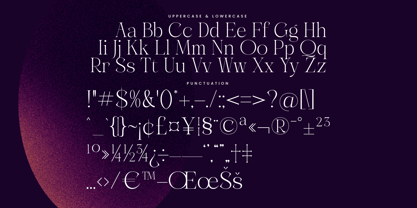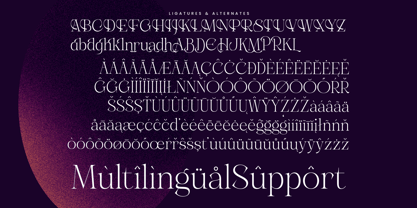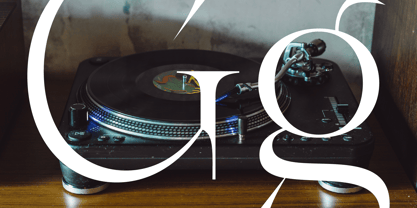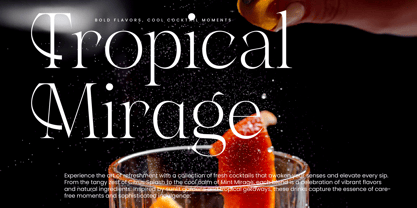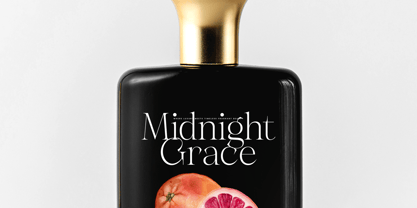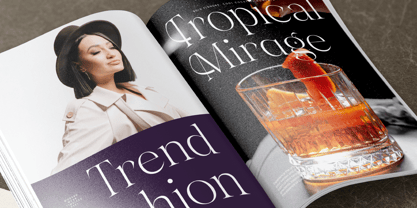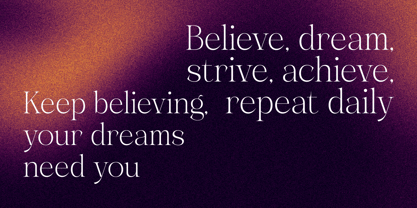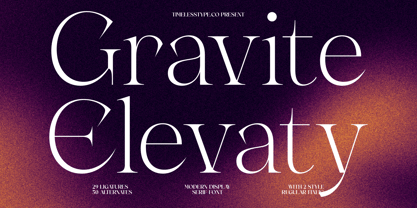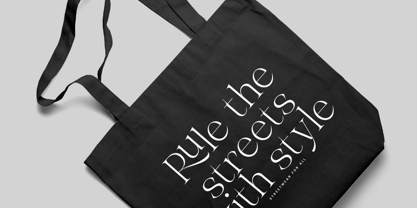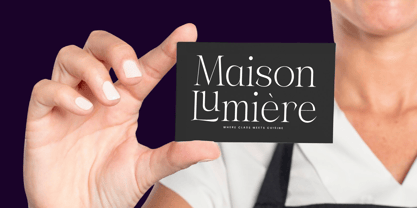
Gravite Elevaty
The Gravite Elevaty Font Family was designed by Heru Utama Putra and published by Timelesstype Studio. Gravite Elevaty contains 2 styles and family package options.
Gravite Elevaty - Modern Display Serif Font , from Timelesstype, Suitable for any projects such as: logos, branding projects, homeware designs, product packaging, mugs, quotes, posters, shopping bags, t-shirts, book covers, name card, invitation cards, greeting cards, label, photography, watermark, special events, and all your other luxury and beautiful projects that need a Luxury Serif taste.